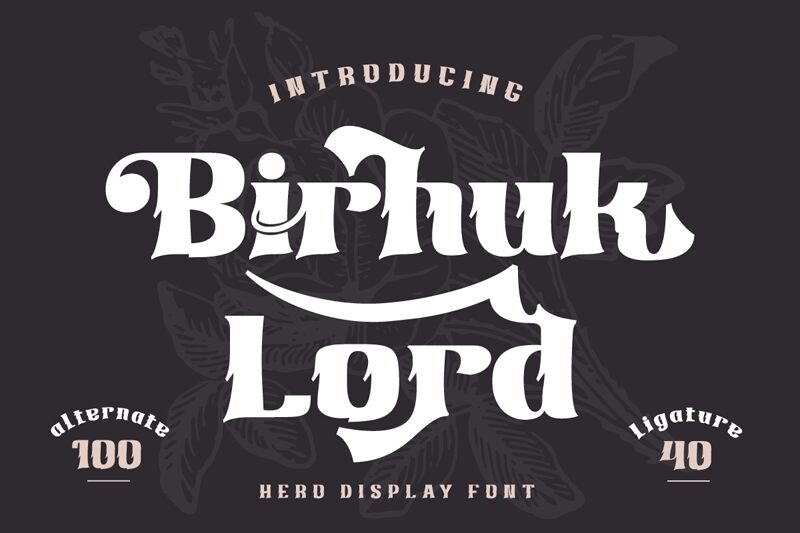
Birhuk Lord font family by twinletter consists of 2 font styles. This free font family showcases fancy ornamental elements streamlined in great harmony. The antique and decorative aesthetics give Birhuk Lord a theatrical decorative flair while maintaining its elaborate and impactful aura. It is expressive, elegant, and fits modern expressive design projects.
Scene designs that deserve drama and heritage are perfect places to use Birhuk Lord fonts. Design with the real intent to shock viewers and get their attention, be it logos, branding, headlines, signage, or even posters.